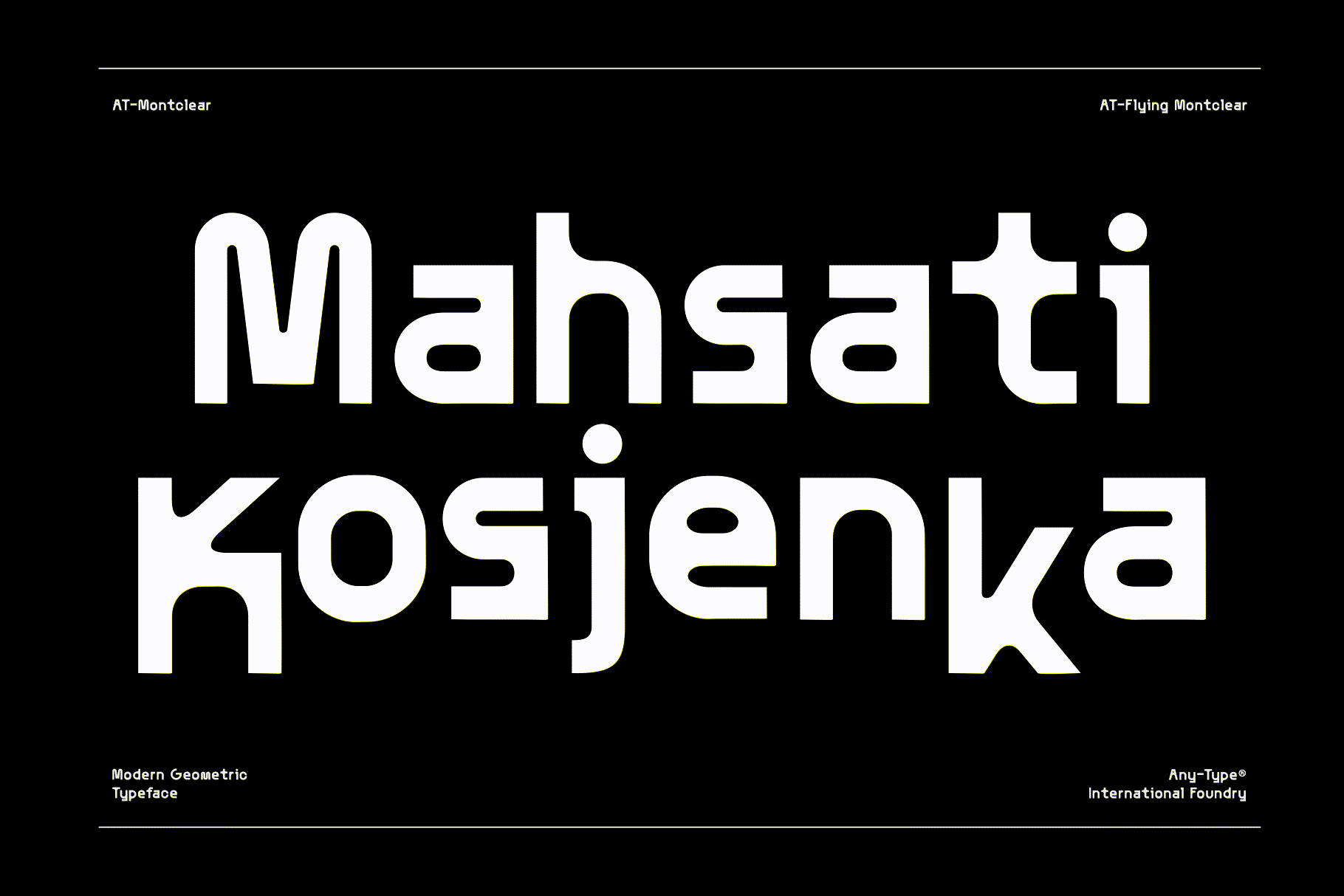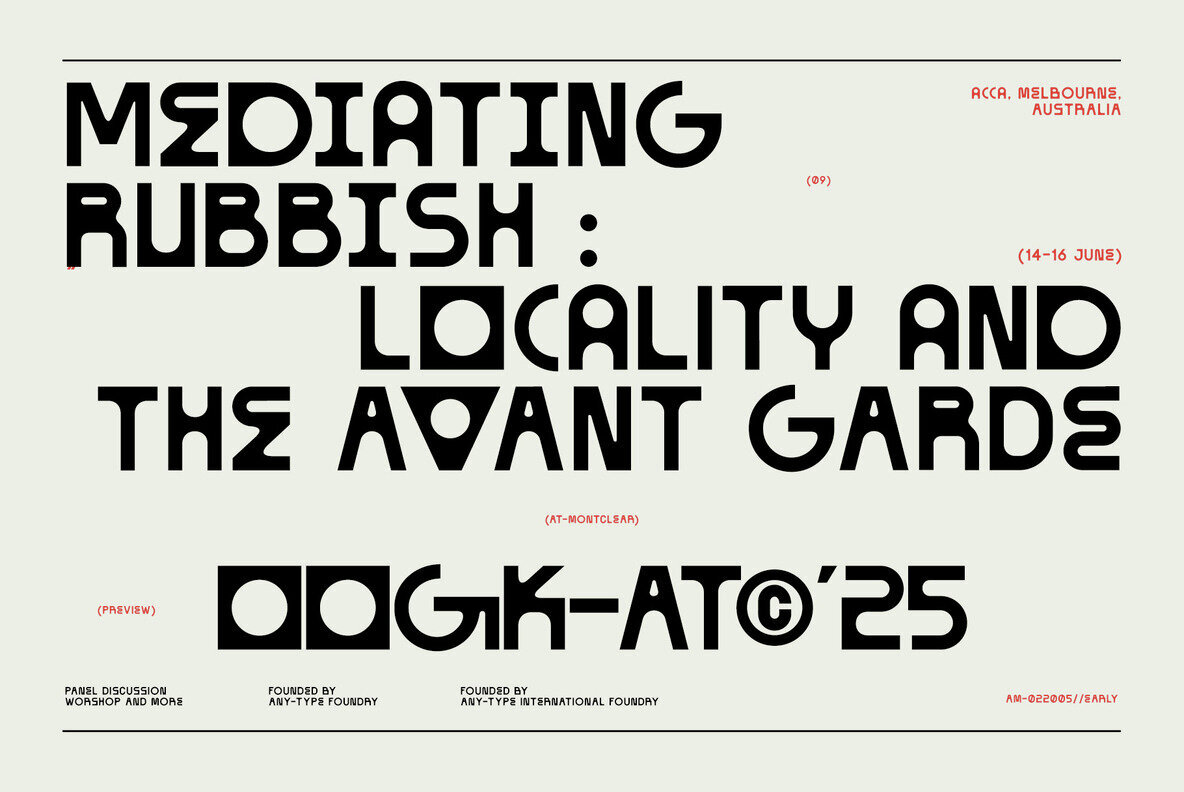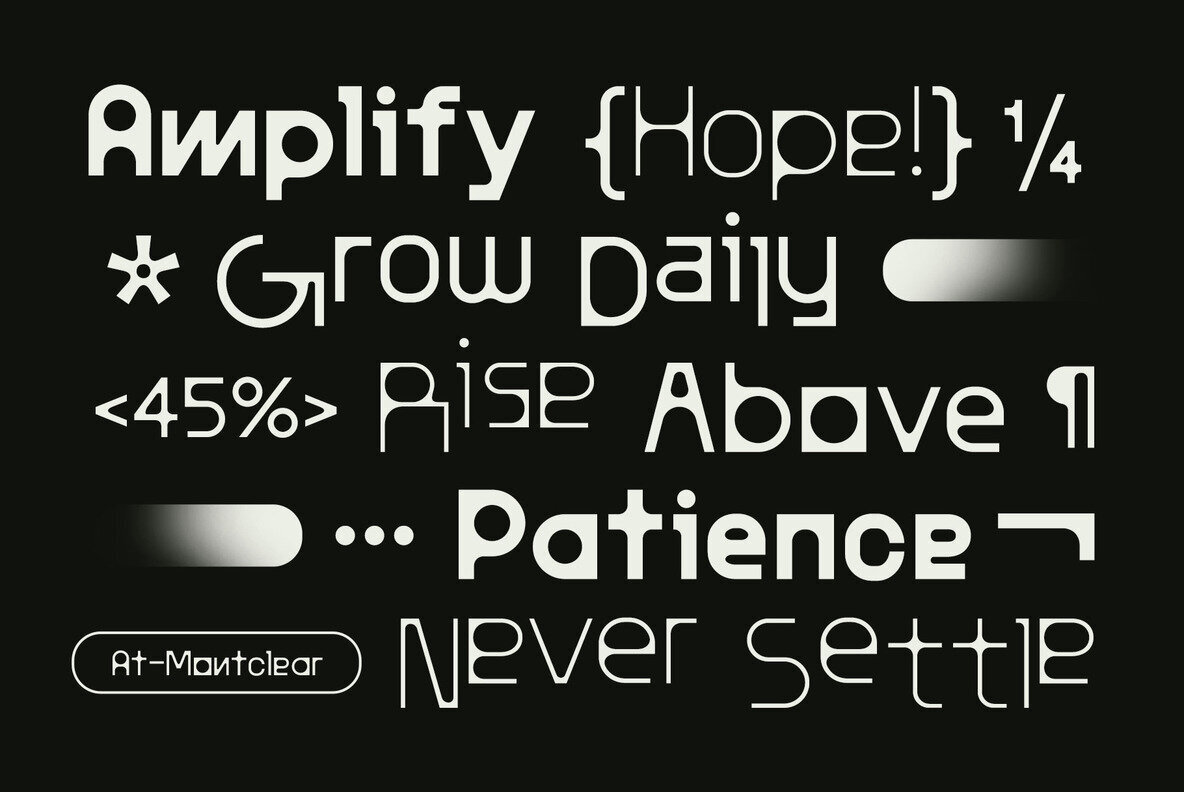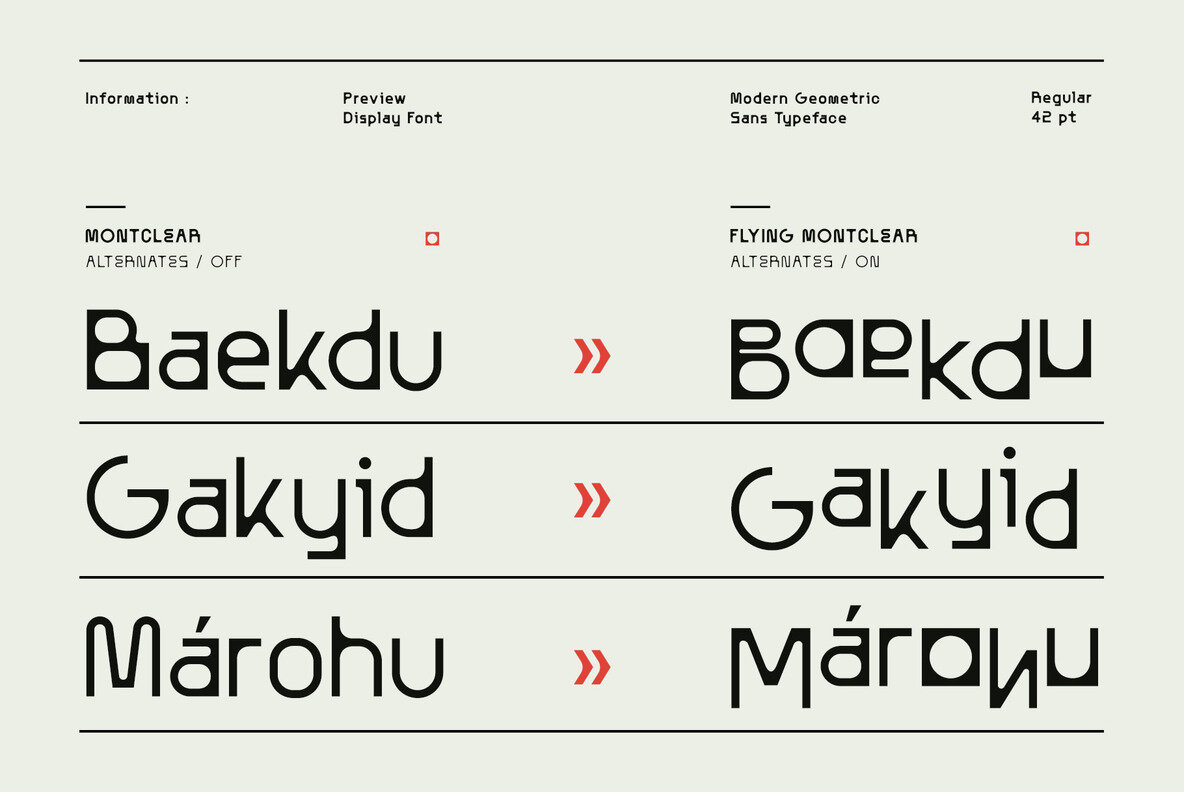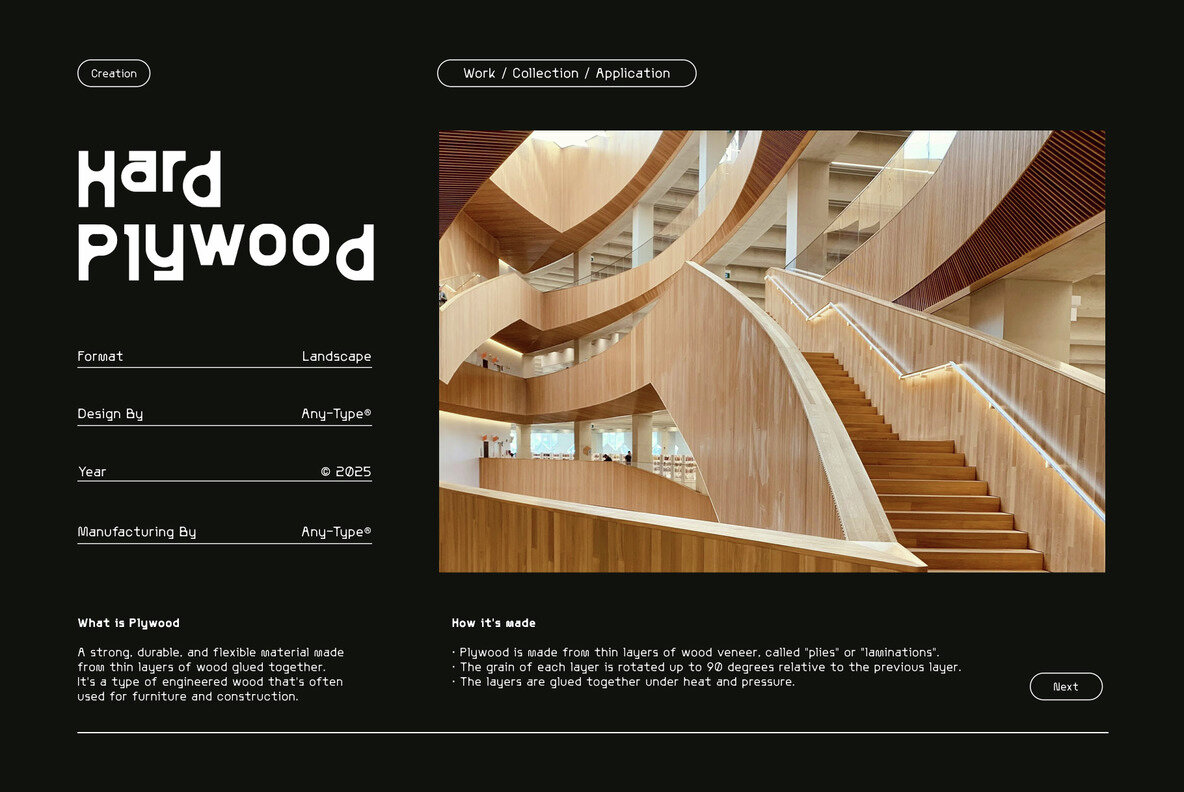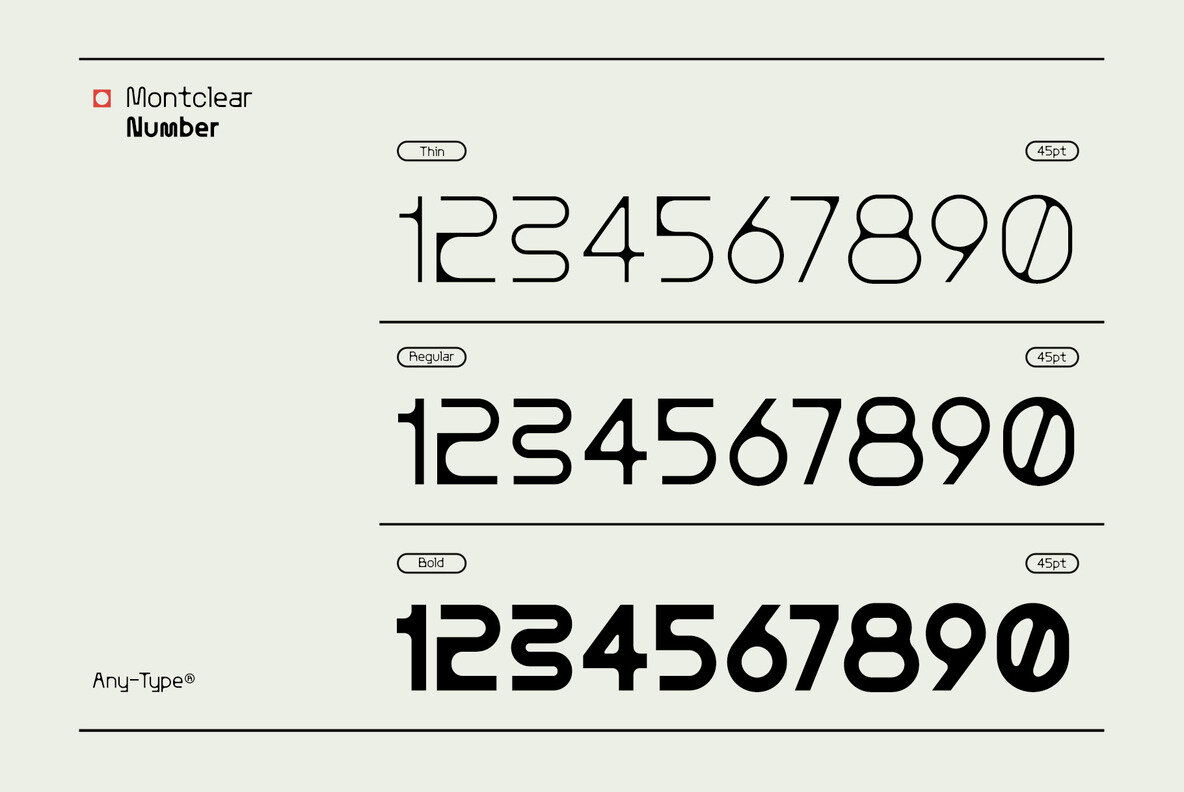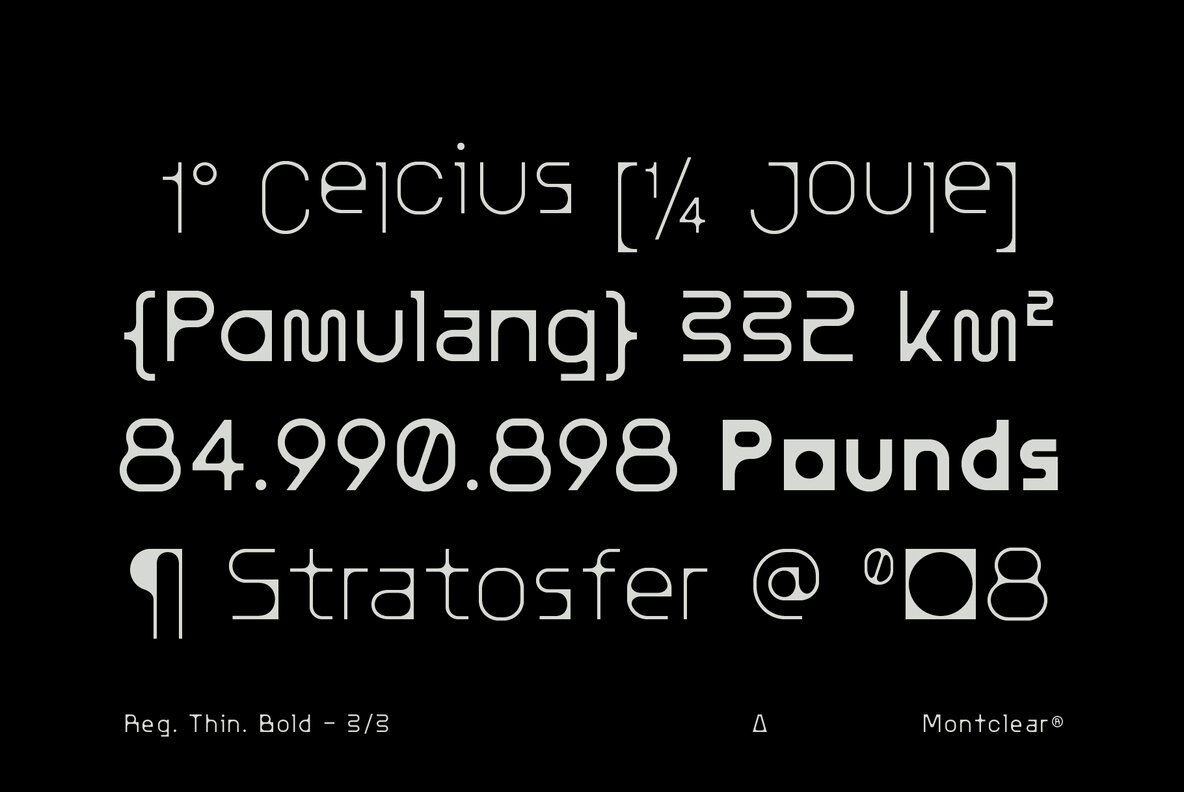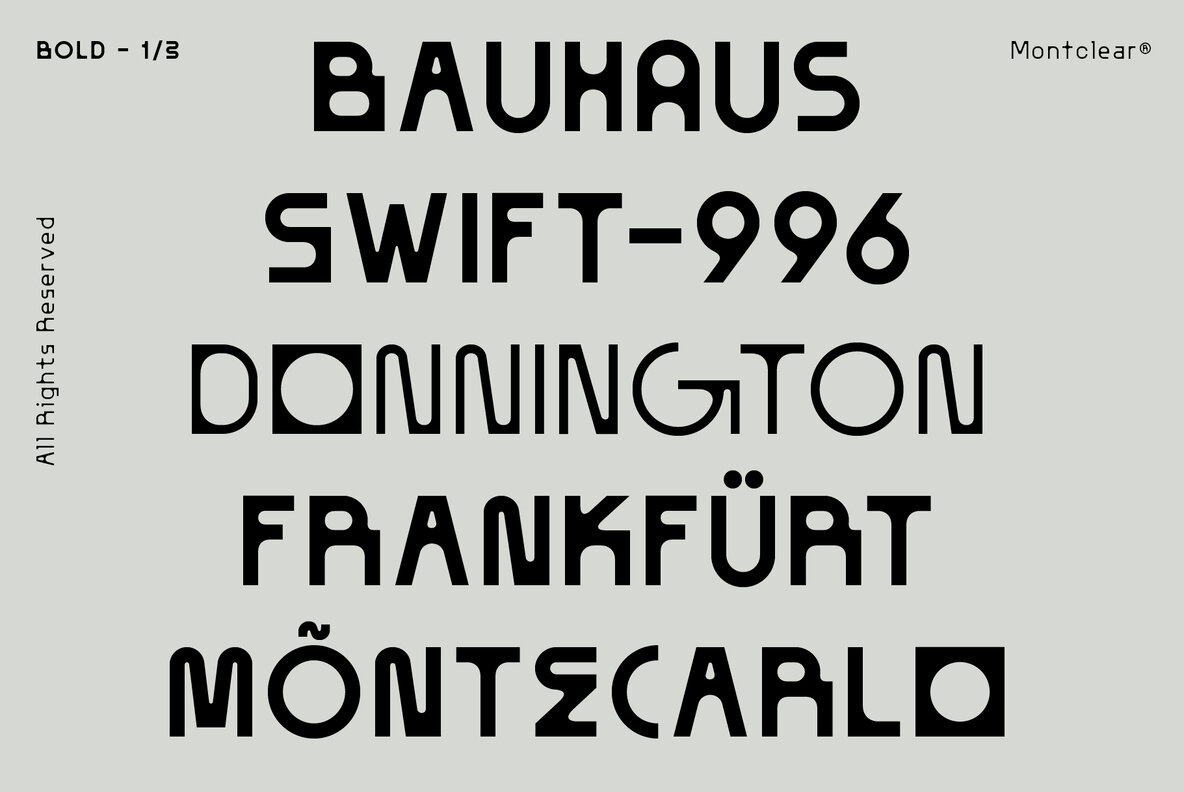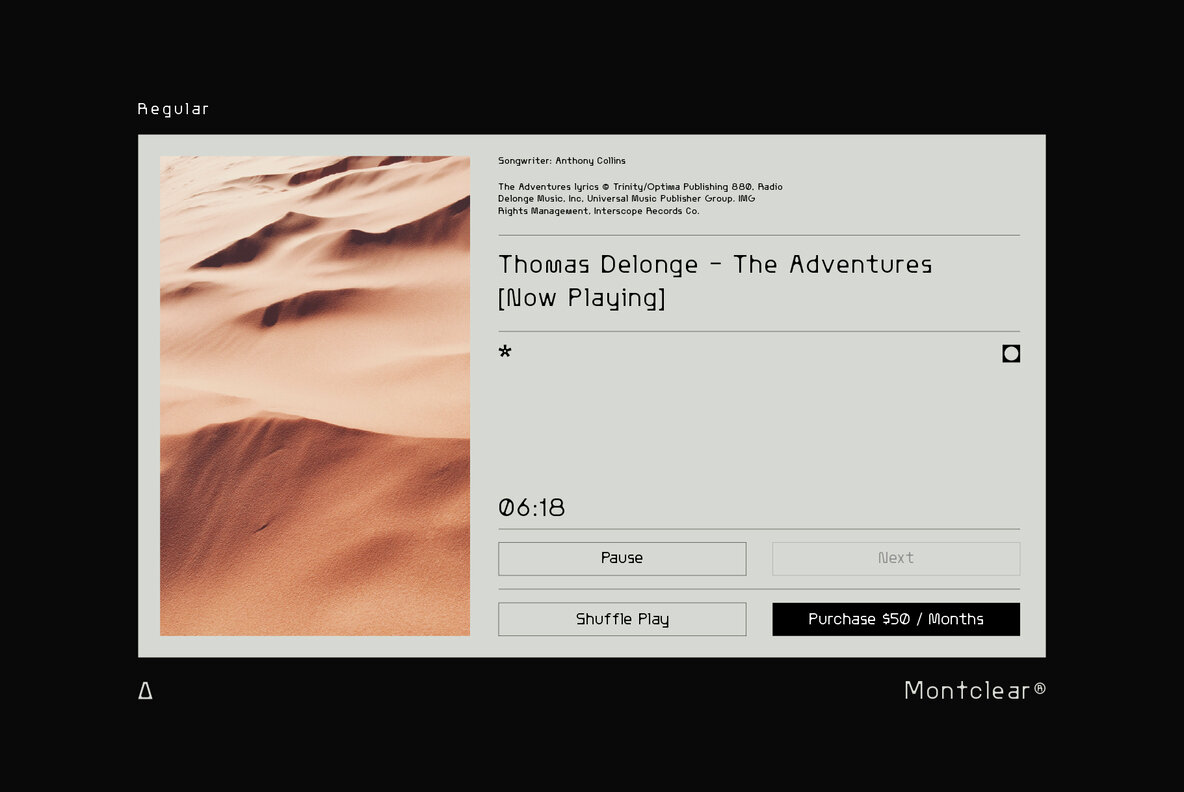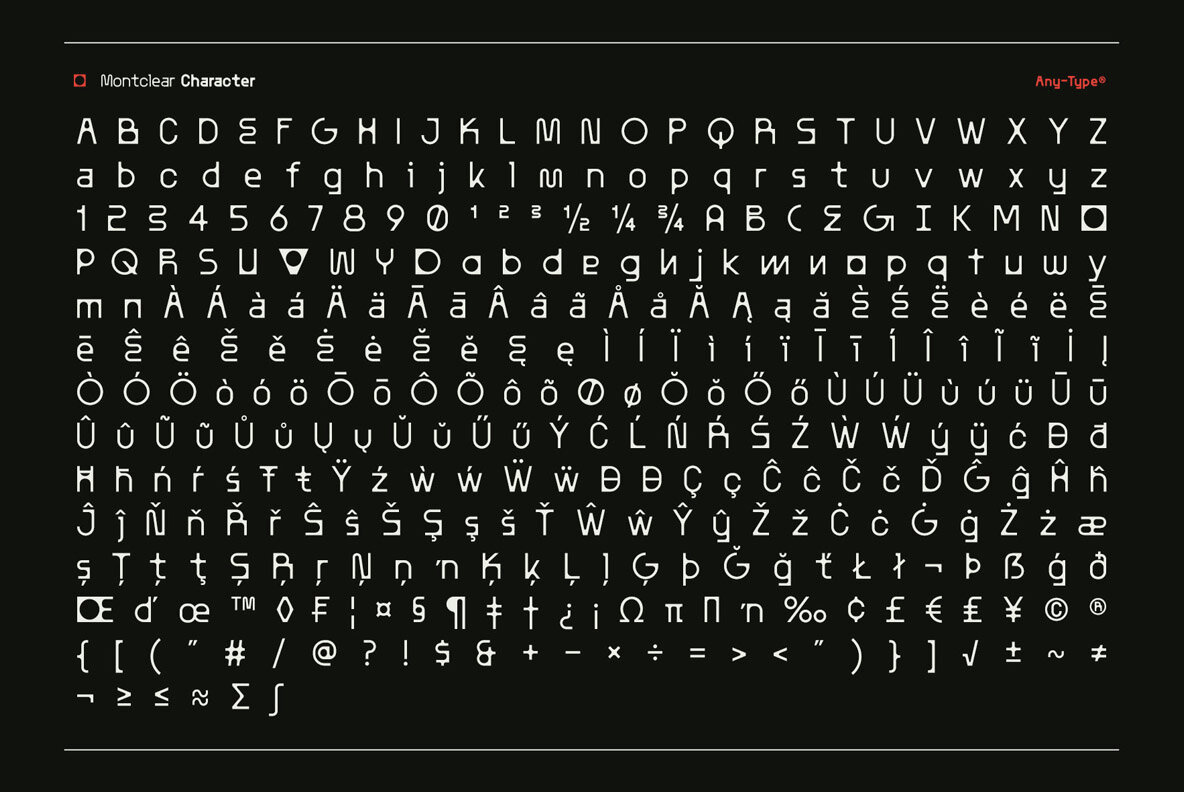
AT Montclear Font
expand_font AT Montclear Font Discover AT Montclear: A versatile font with dynamic styles. Elevate your designs with Normal and Flying styles in three weights. Sans Serif,Modern,Digital,Quirky,Geometric,Sans Serif,Futura,Minimalist,Precise,Contemporary,Even Strokes,Digitized,Sharp,Bold,Structured,Sci Fi,Space,Square Explore Exceptional Fonts for Digital and Traditional Media Fontpath offers a large variety of fonts for every designer, all at affordable prices and in multiple formats. Browse our best in class fonts today for all your creative needs, you can find everything you need right here at our site! Fonts,sans,sans serif,retro,script,decorative,title,FontPath 20140312040223 Fontpath offers 200,000+ of the most professional fonts found online, start downloading today! Real-Time Font Discovery at Fontpath